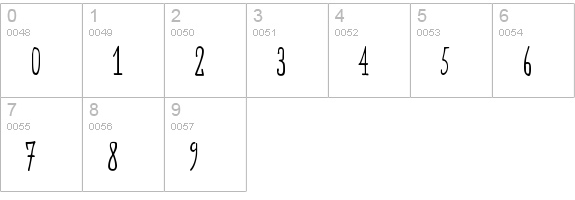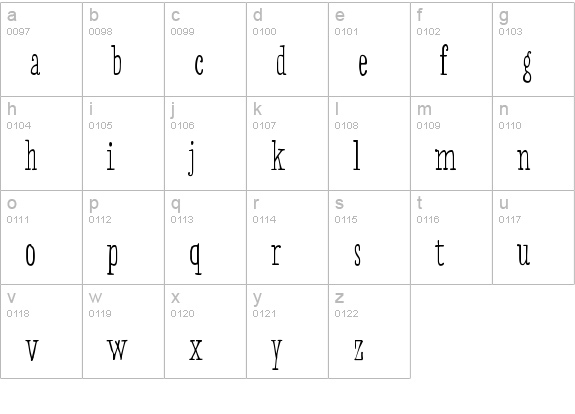
Love Potion No. 10 Font Details
Love Potion No. 10 font is a whimsical and enchanting typeface that will cast a spell on your designs. With its delicate curves and graceful flourishes, this font exudes a sense of romance and magic. Perfect for adding a touch of charm to wedding invitations, greeting cards, or any project that needs a dash of fairy-tale flair. The Love Potion No. 10 font is freely available to download at FontsMarket.com, where you can unleash your creativity and bring your designs to life with this captivating typeface. Let Love Potion No. 10 work its magic on your projects and watch as it transforms them into works of art that will captivate and enchant all who see them. Add a sprinkle of love and a dash of whimsy to your designs with Love Potion No. 10 font.